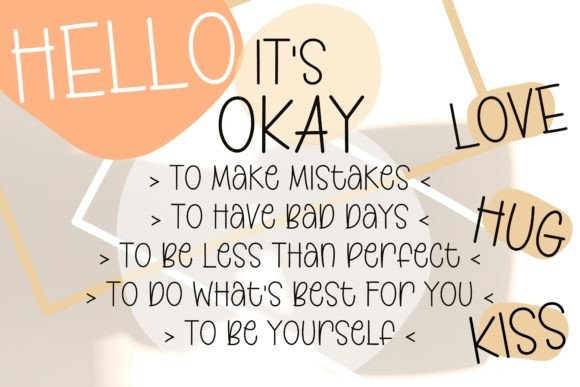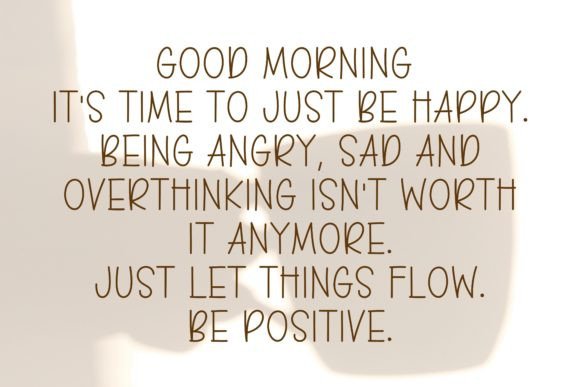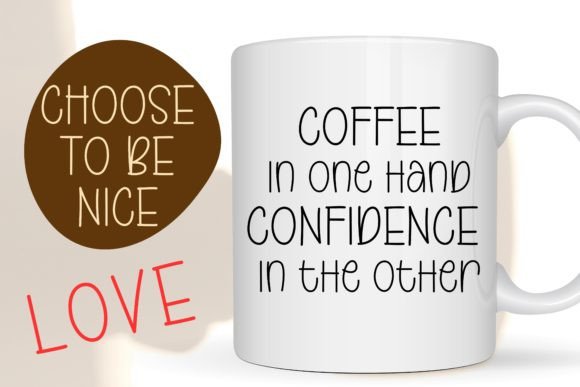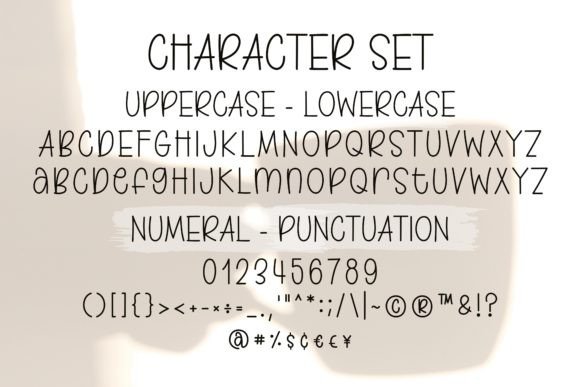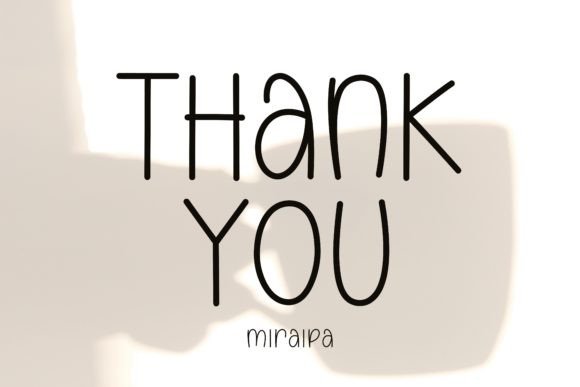
Introducing Early Morning Font: A Playful and Friendly Handwritten Sans Serif Font
Are you tired of using the same old fonts for your creative projects? Look no further! We’re excited to introduce Early Morning Font, a delightful handwritten sans serif font that’s perfect for adding a friendly touch to your designs. In this article, we’ll explore the features and benefits of Early Morning Font, and show you how it can bring your DIY projects to life.
A Playful and Friendly Font Style
Early Morning Font is designed with a playful and friendly vibe, making it ideal for a wide range of creative projects. Its handwritten sans serif style gives it a personal and approachable feel, perfect for designs that require a human touch. Whether you’re working on a fun project, a diary planner, or a special occasion design, Early Morning Font is sure to bring a smile to your face and your audience’s face.
Perfect for Fun and Creative Projects
Early Morning Font is incredibly versatile and can be used for a variety of projects, including:
- Easter and spring-themed designs
- Back to school and educational materials
- Wedding and party decorations
- Fall and Halloween-themed designs
- Christmas and holiday decorations
- Blogs and social media posts
- Clothing and accessory designs
- Child-related designs and products
Why Choose Early Morning Font?
So, why should you choose Early Morning Font for your next project? Here are just a few reasons:
- Unique and eye-catching: Early Morning Font has a distinctive and playful style that will set your designs apart from the crowd.
- Easy to read: The font’s clear and sans serif design makes it easy to read, even at small sizes.
- Versatile: Early Morning Font can be used for a wide range of projects, from fun and playful to more formal and elegant designs.
- DIY-friendly: The font is perfect for DIY projects, such as crafting, scrapbooking, and party planning.
- Experiment with different sizes: Early Morning Font looks great at a variety of sizes, from small and delicate to large and bold.
- Play with colors: The font’s playful style lends itself well to bright and bold colors, but it also looks great in more muted and pastel shades.
- Combine with other fonts: Early Morning Font pairs well with other sans serif fonts, as well as more decorative and script fonts.